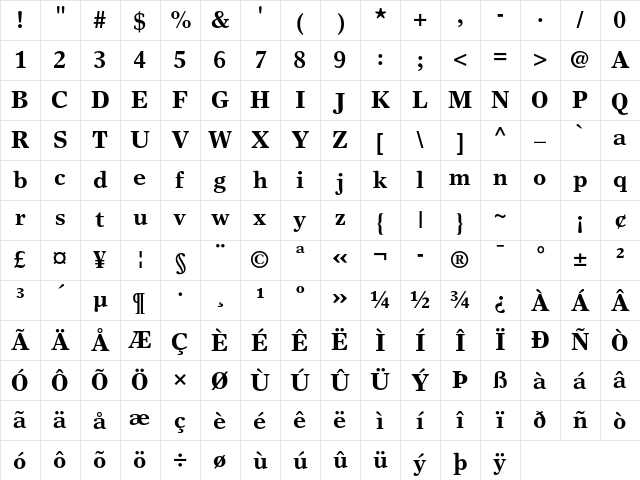
Times Europa LT Std Bold
Designer: Walter Tracy
Design Context for Times Europa LT Std
Times Europa LT Std is a composed and adaptable typeface that performs quietly and consistently across a wide range of design contexts. Its bold stroke weight gives it real presence on the page.